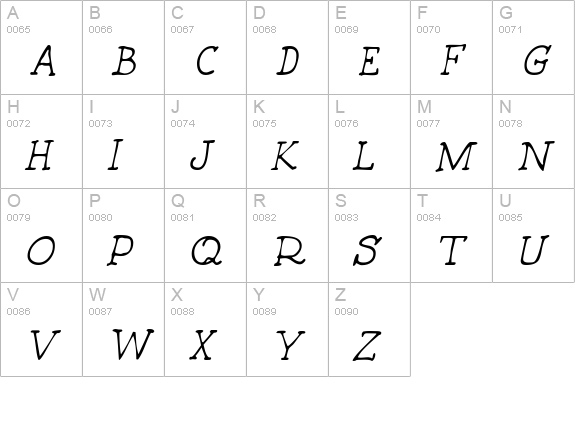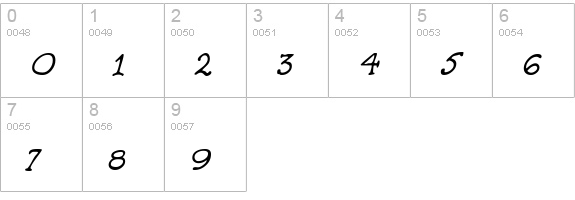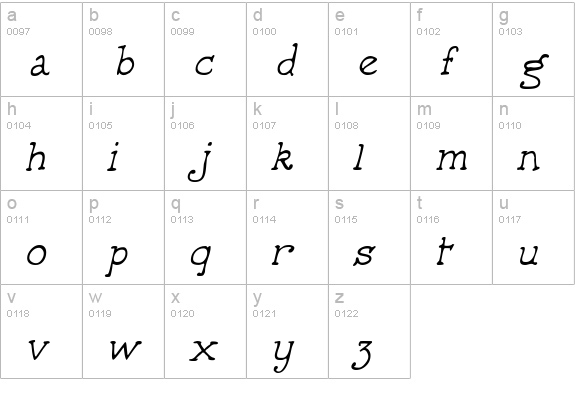
5thGrader Italic Font Details
5thGrader Italic is a distinctive, italic variant in the 5thGrader typeface family \xE2\x80\x94 well suited to design and typography projects.
Introducing the charming and playful 5thGrader Italic font, perfect for adding a touch of whimsy to your projects! This delightful font features slanted characters with a youthful and energetic vibe, making it ideal for various creative endeavors. Whether you're working on school projects, invitations, posters, or any design that calls for a fun and friendly look, 5thGrader Italic has got you covered. Best of all, this font is available for free download at FontsMarket.com, allowing you to enhance your designs without breaking the bank. Embrace the creativity and versatility of 5thGrader Italic font today and watch your projects come to life with its unique charm and character!